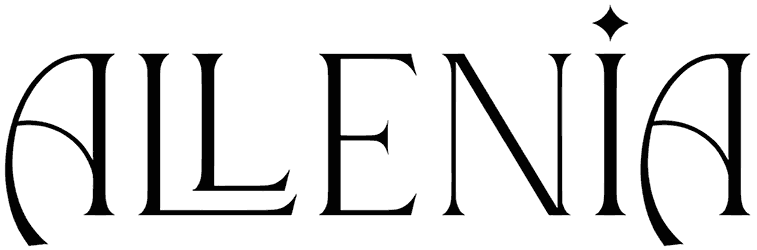
Mirande Font
Mirande can transform simple words into something fancy. This fashion font has a serious feeling to it and every character has a thin and curled design. You can use it for beauty brands, cosmetic sales, fashion events, fancy party flyers, and magazine titles. This font is an all-caps one.